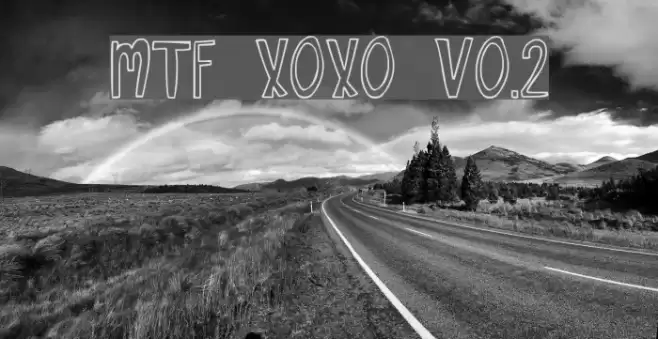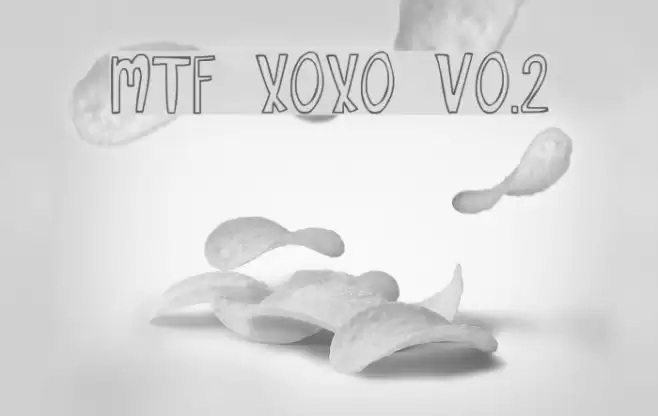
MTF XOXO Vo.2 Font
MTF XOXO Vo.2 Description
This playful and whimsical font features a hand-drawn style with a unique outline effect. Each character is crafted with a casual, artistic flair, giving it a lively and energetic appearance. The letters are slightly irregular, adding to the charm and informal nature of the design. The font maintains a consistent stroke width throughout, with rounded edges that soften the overall look. Its distinctive style makes it stand out, perfect for projects that require a fun and engaging typeface.
A playful, hand-drawn font with a unique outline effect and casual style from Uncategorized fonts.
- Proposed Projects: Ideal for children's books, greeting cards, playful branding, and creative posters.
- Overall Style: Whimsical and playful